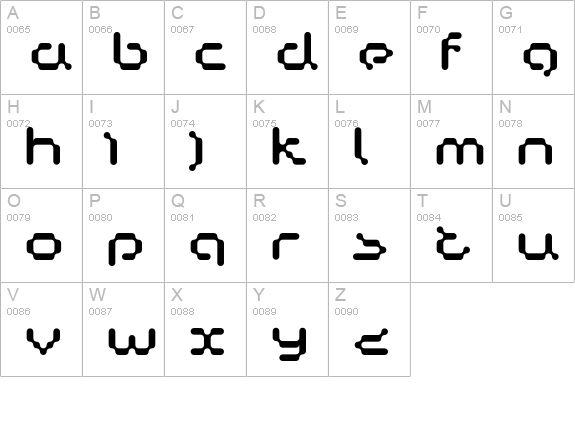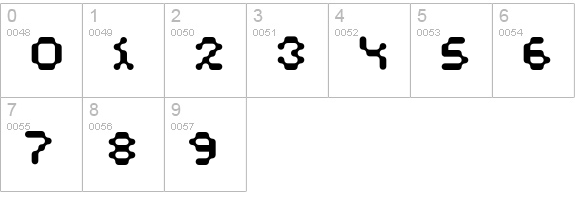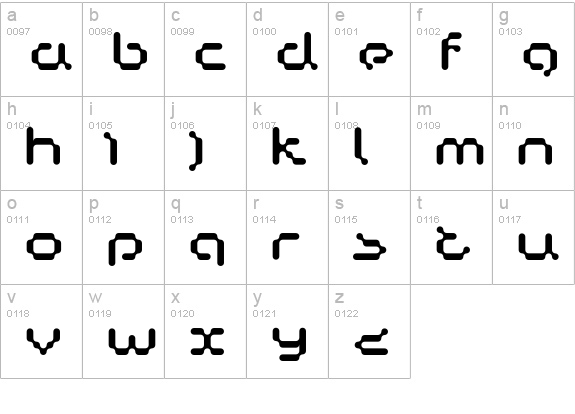
Copycat Font Details
Introducing Copycat font, a versatile and modern typeface designed to make your designs stand out. With its sleek lines and contemporary style, Copycat is perfect for a wide range of projects, from branding to invitations to social media graphics. This font exudes elegance and sophistication, making it a popular choice for those looking to add a touch of class to their work. The best part? Copycat font is completely free to download at FontsMarket.com. Whether you're a seasoned designer or just starting out, this font is a valuable addition to your collection. Don't miss out on the opportunity to enhance your projects with the stylish and eye-catching Copycat font. Download it today and elevate your designs to the next level.